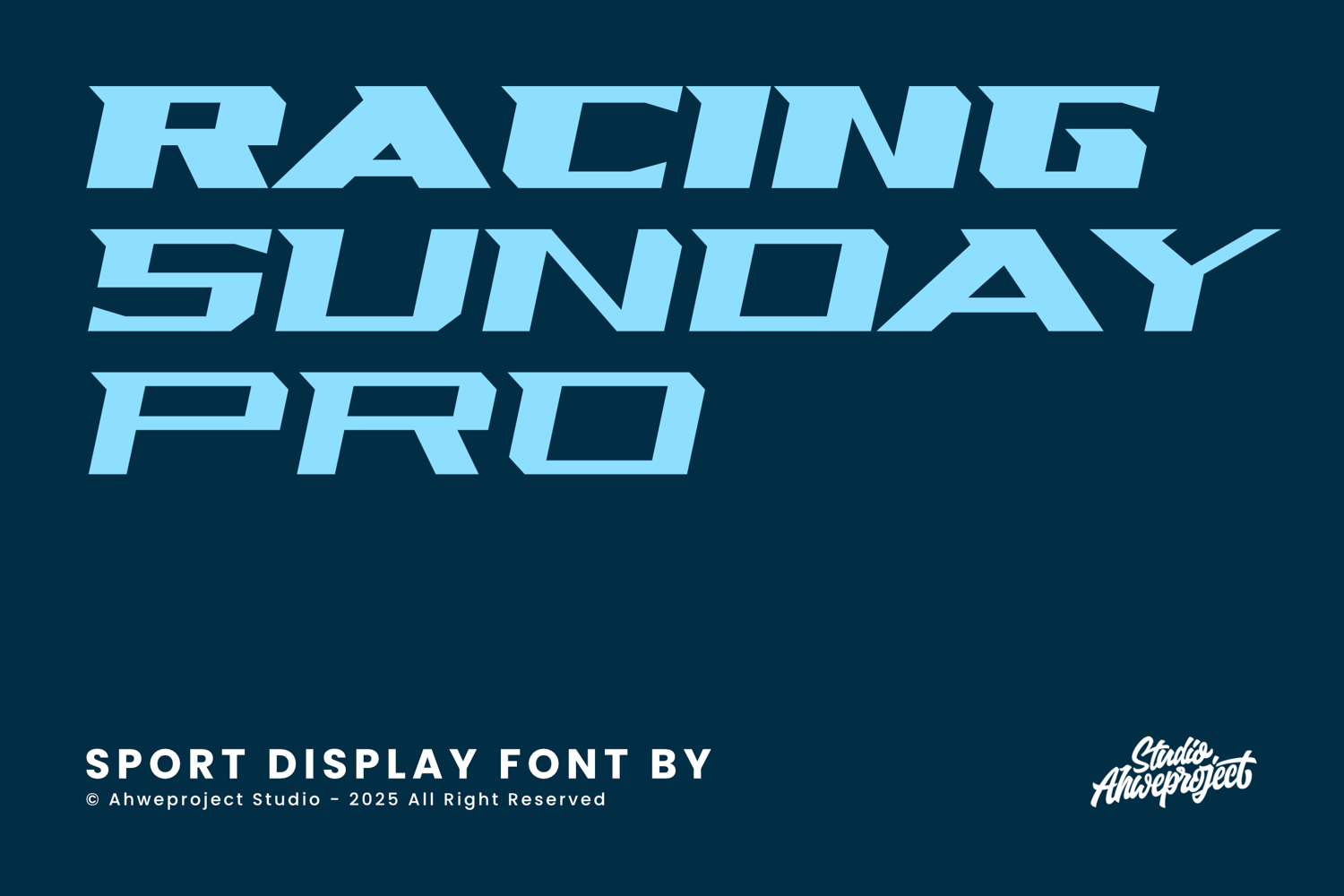
Racing Sunday Pro
Racing Sunday Pro is a bold sport display font with a fast, angular style inspired by race cars and Sunday night matches. Its sharp diagonals and strong all–caps letters instantly give your design a sense of speed, power, and competition, perfect for eye-catching headlines and logos.
- Full set of Upper & Lowercase Character
- Number & Punctuation
- Opentype Features
Use Racing Sunday Pro for:
- Racing posters, motorsport events, and car or motorcycle clubs
- Esport and sport team logos, jersey numbers, and scoreboards
- Gaming thumbnails, streaming overlays, and YouTube titles
- Bold advertising, banners, flyers, and social media graphics
With its compact shapes and dynamic slant, this modern racing font stays highly legible while delivering an aggressive, futuristic look. Add Racing Sunday Pro to your collection and boost the energy of your next sport or gaming project!